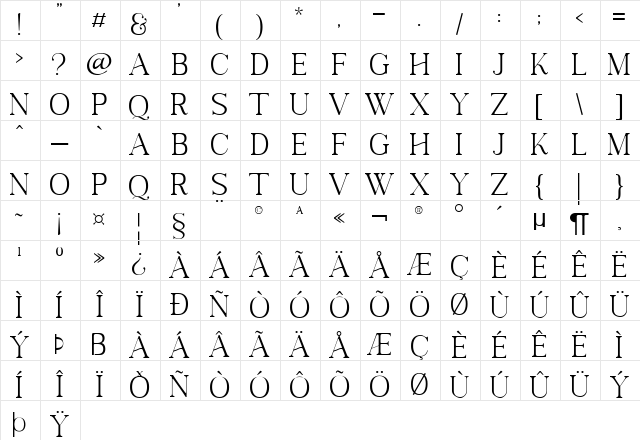
Complete Next Southerland Serif DEMO Regular glyph index. Displaying only characters natively supported by Next Southerland Serif DEMO Regular font.
Next Southerland Serif DEMO carries the refined structure of traditional serif typography, with bracketed terminals and considered proportions that communicate credibility and craft.
Pro Tip: Use Next Southerland Serif DEMO for editorial body copy and considered headline work. Pair with a neutral sans for UI elements or captions to create a classic hierarchy.